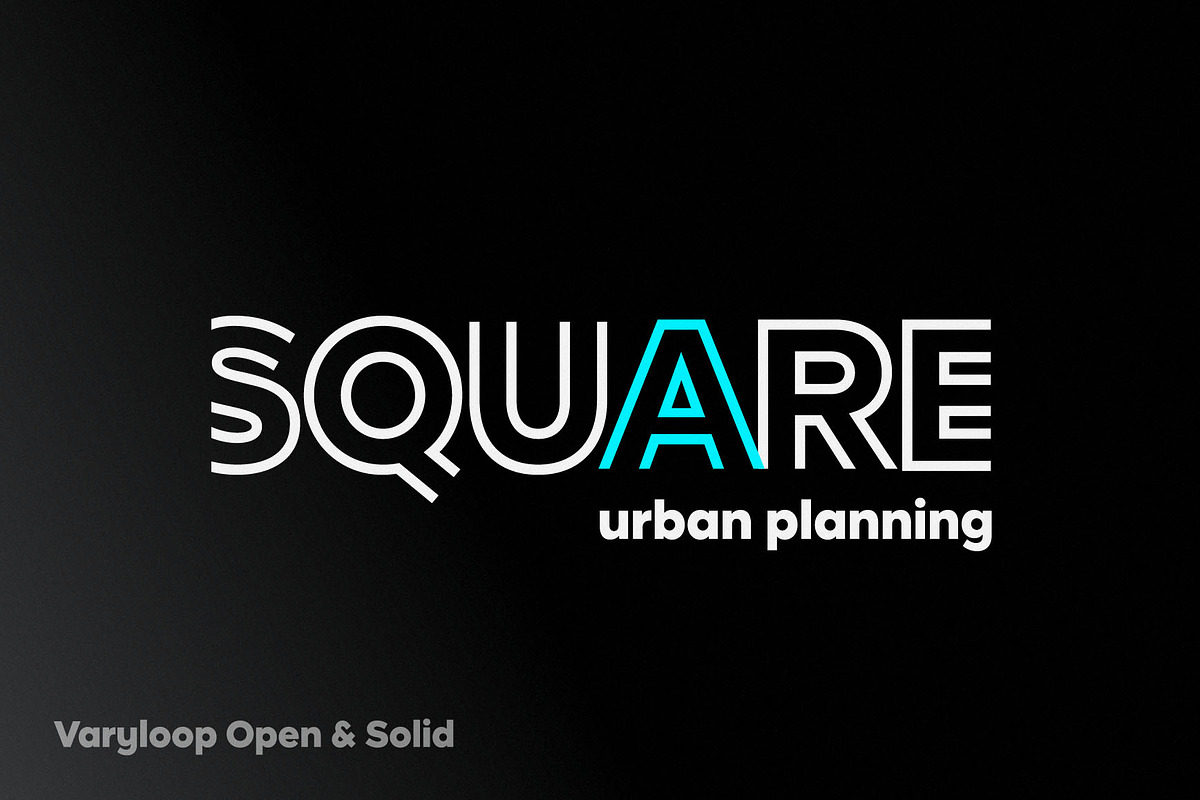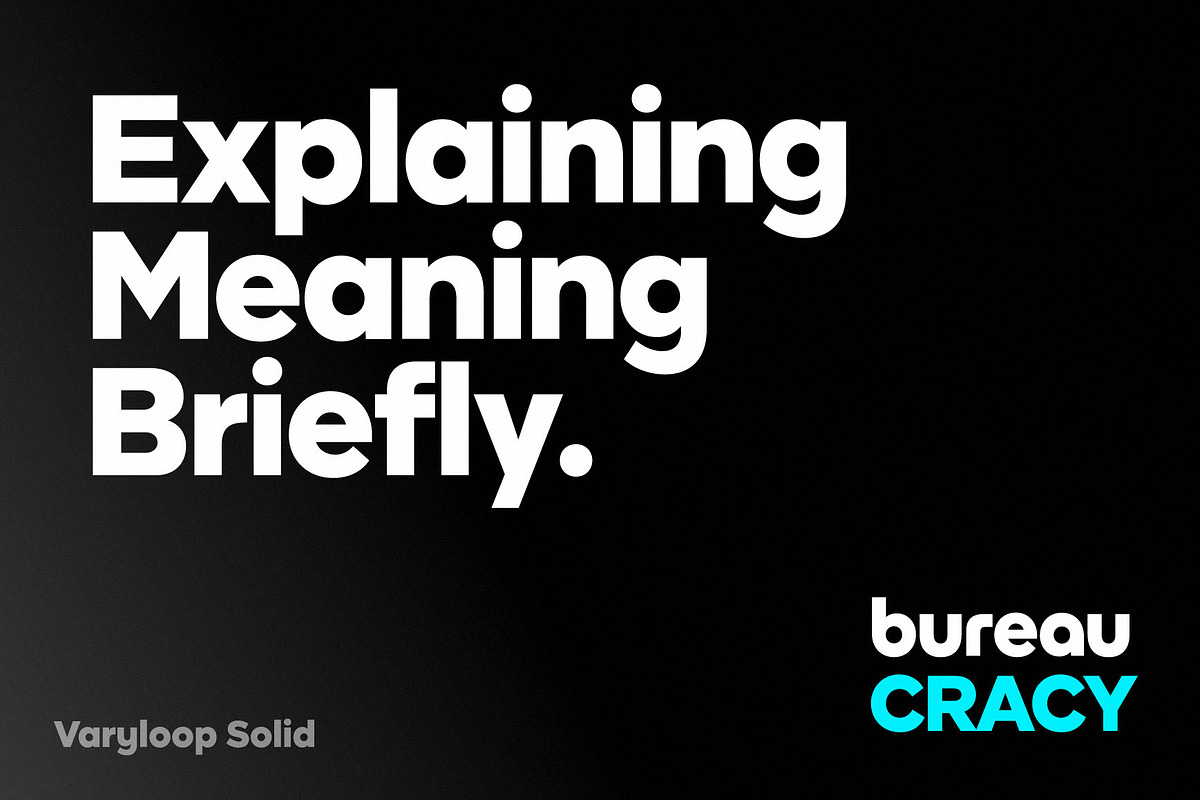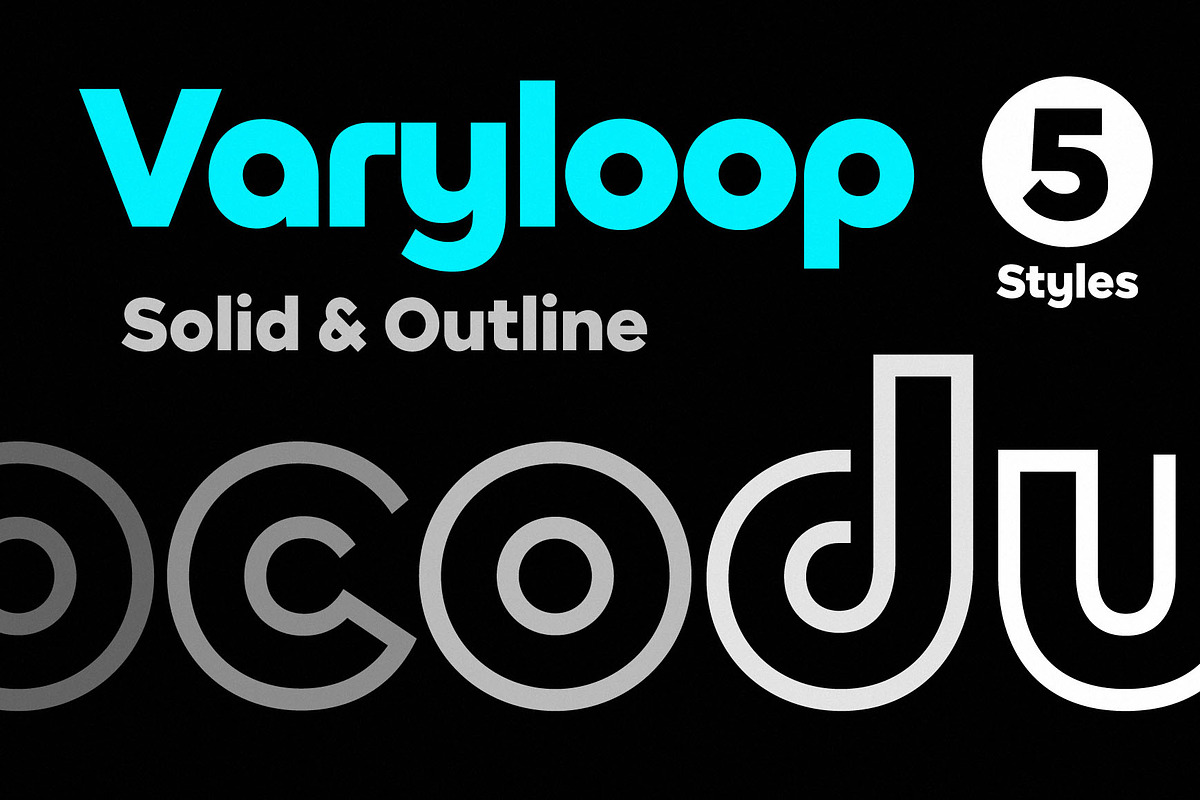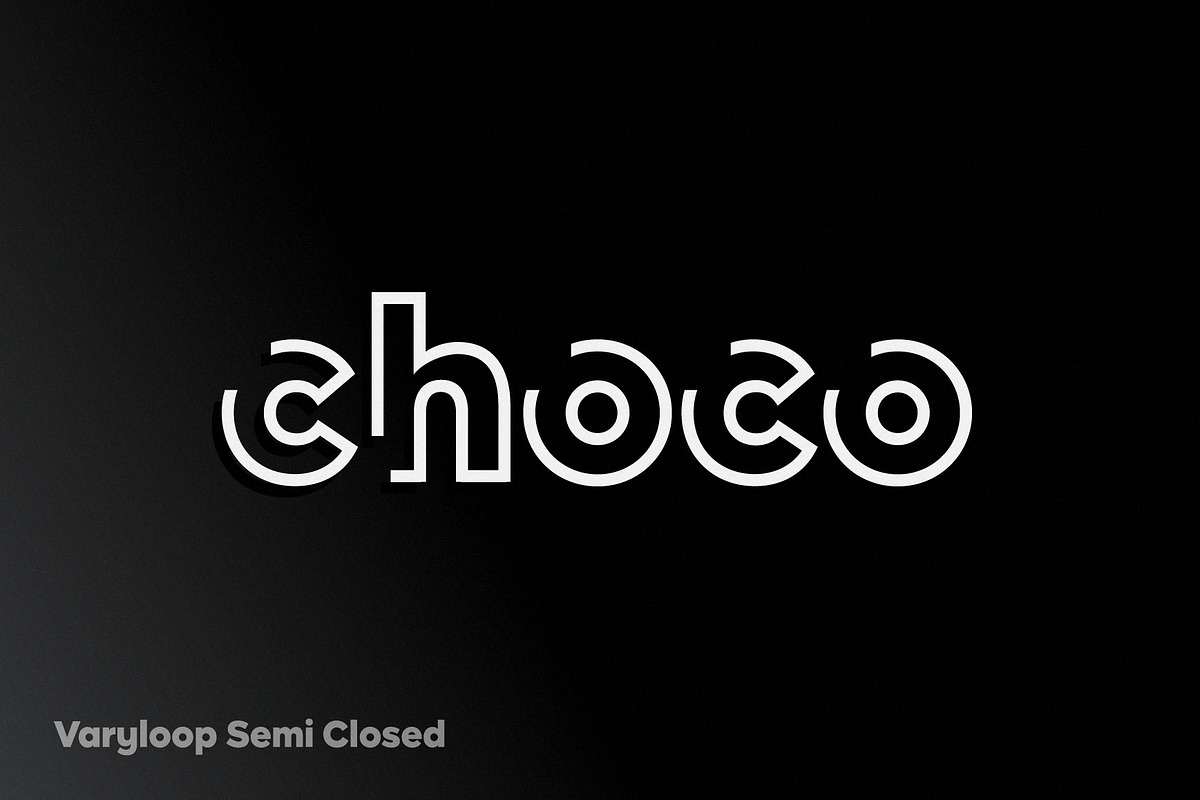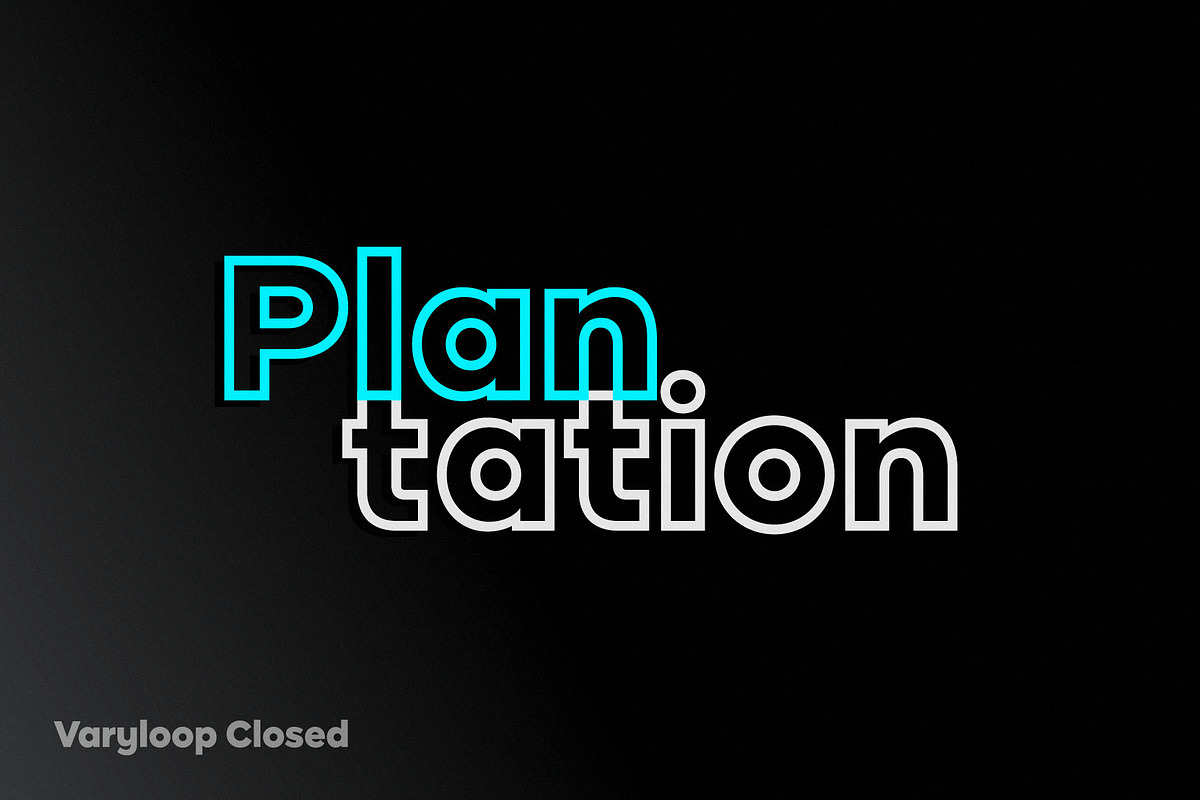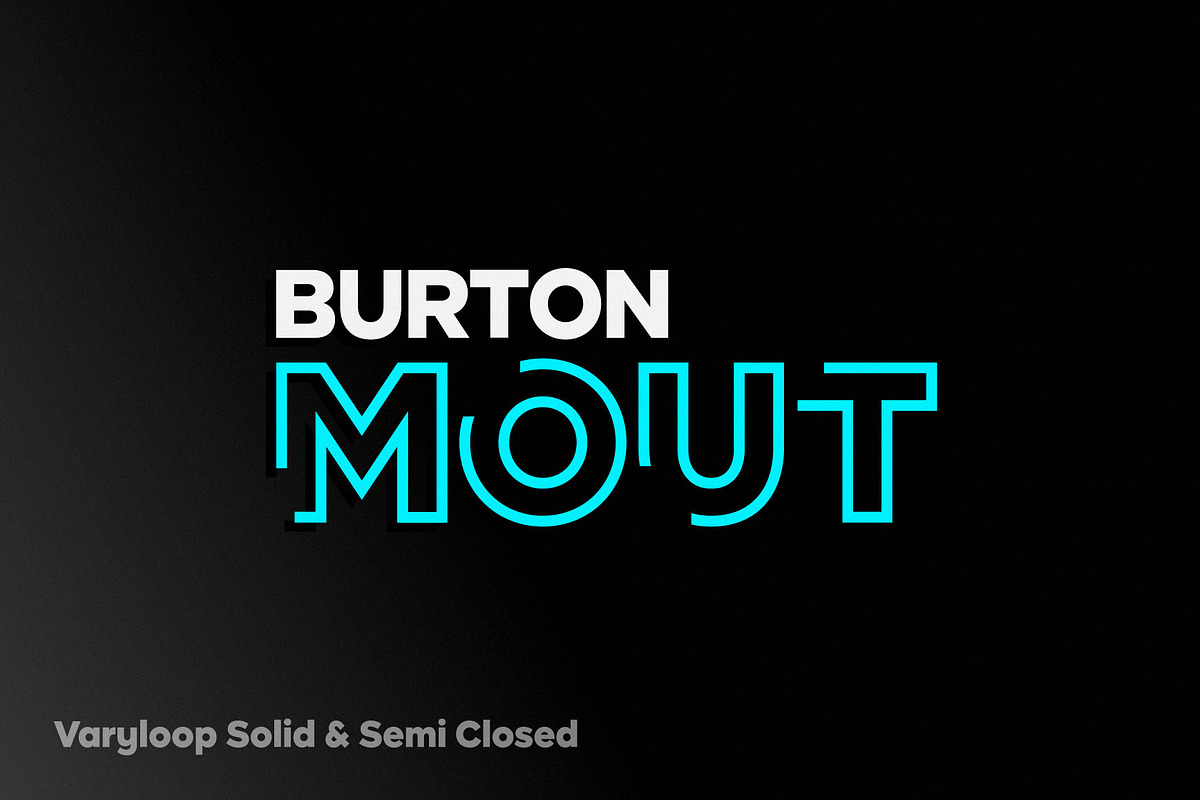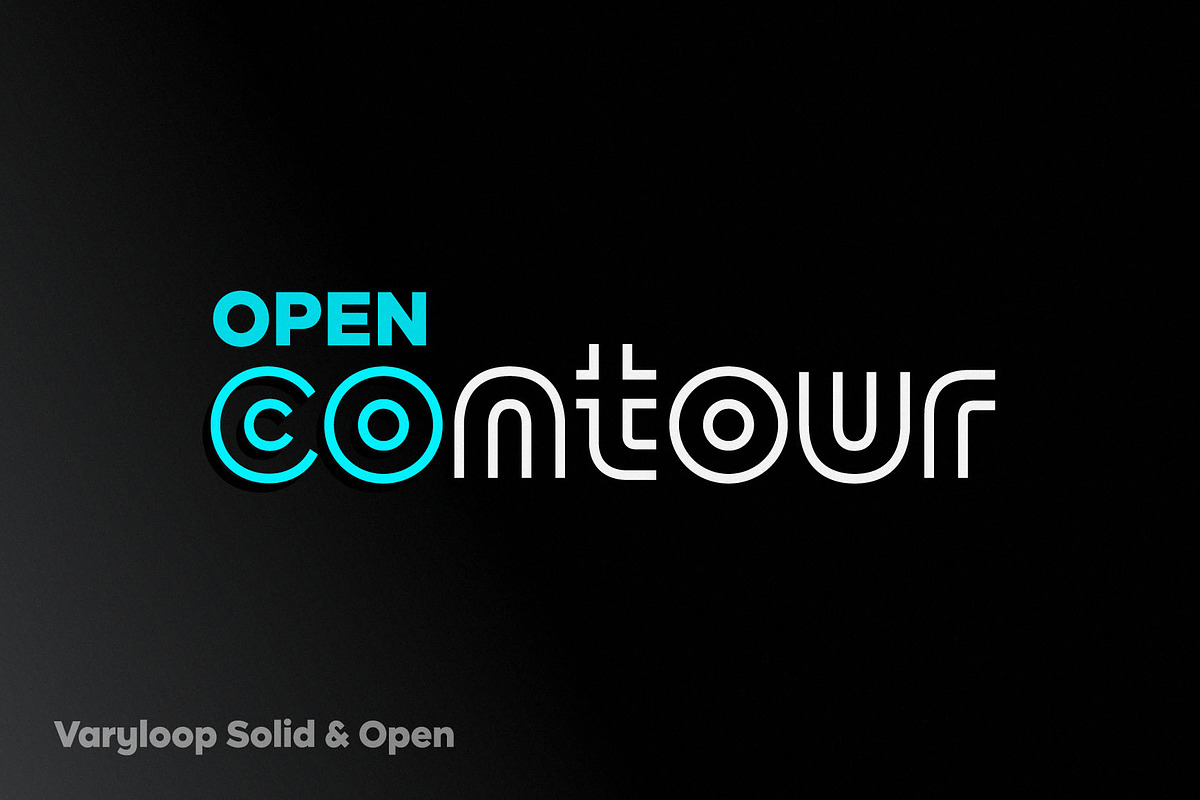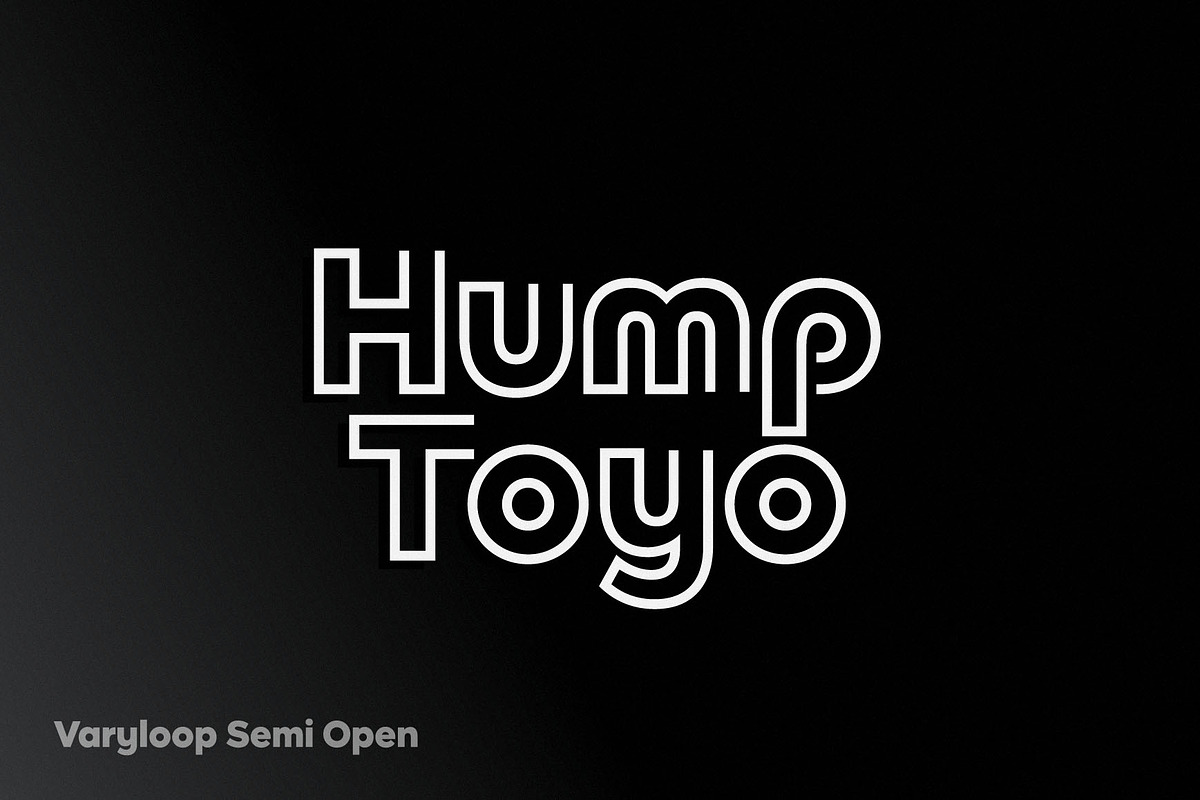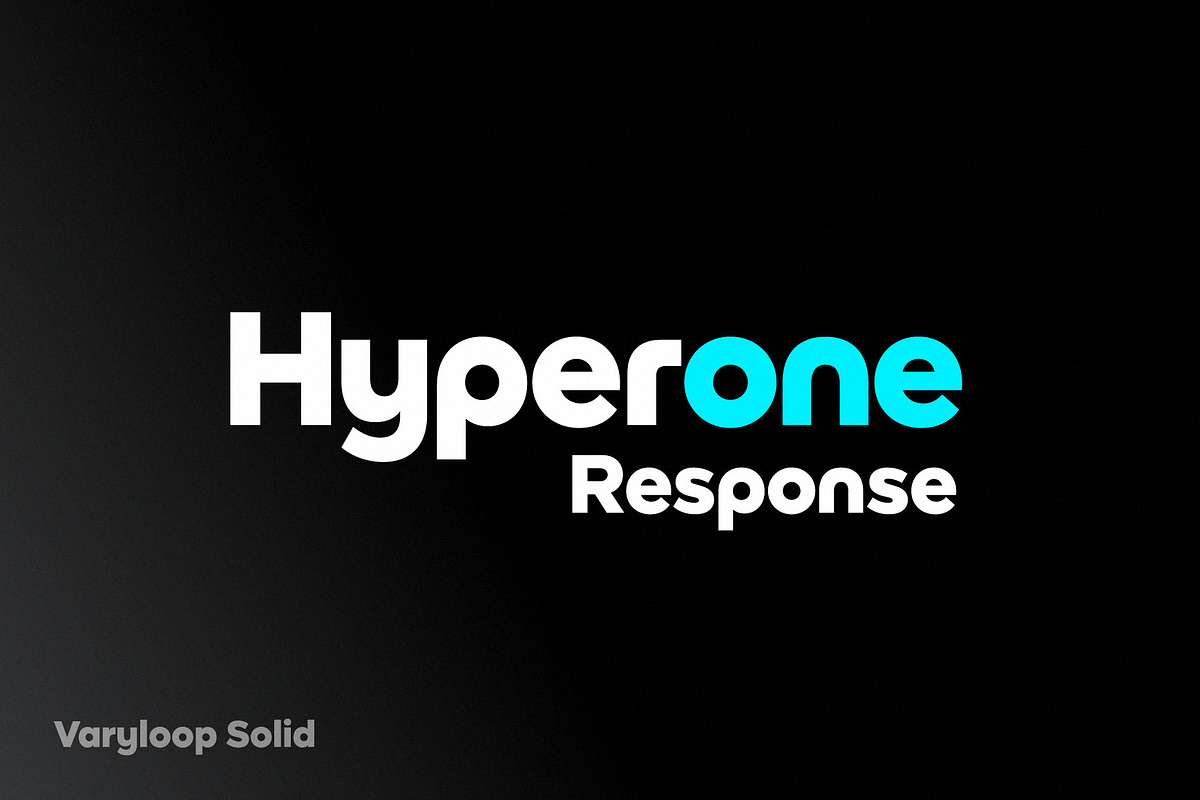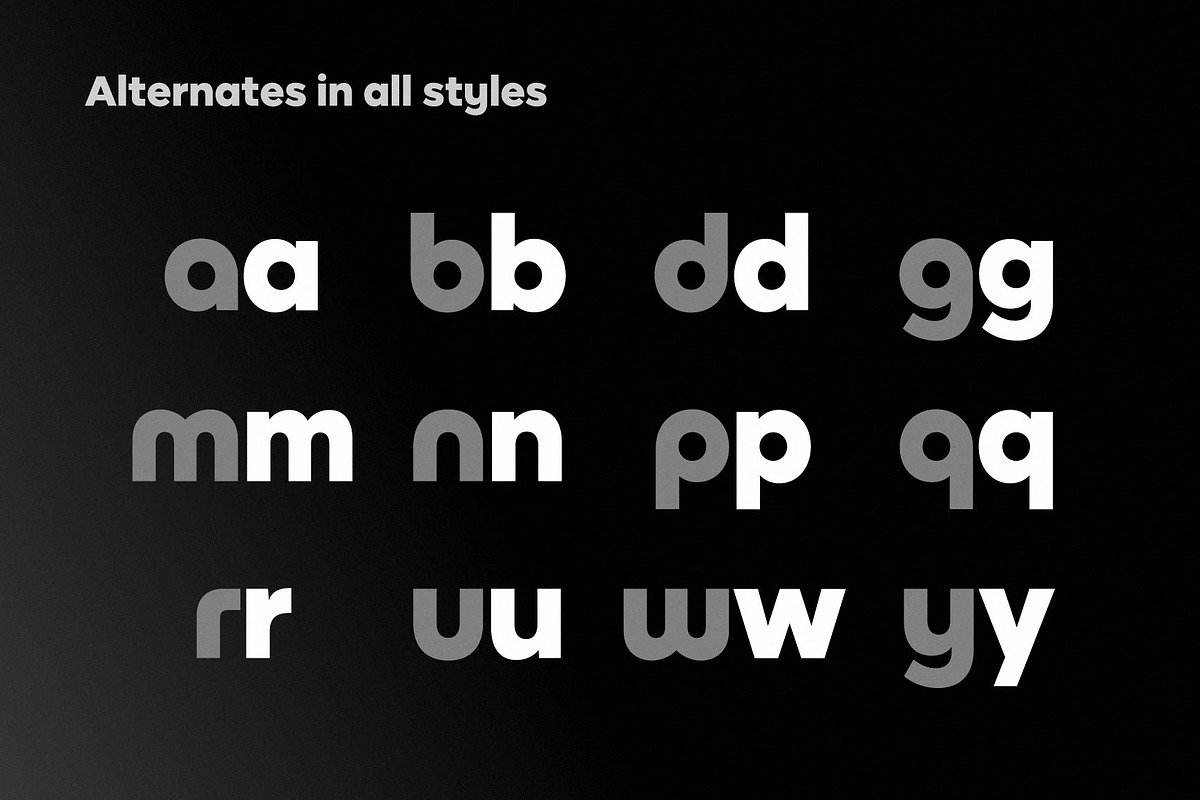
Varyloop Font Family
Varyloop font family is suitable for creating minimalistic logos, wordmarks, titles, taglines. It consists of one solid font and four outline fonts. Each style has a number of alternate characters. You can mix different styles and alternate characters to get an interesting result.
Each font contains:
- lowercase and uppercase Latin letters
- alternate characters
- basic multilingual letters
- numbers
- extra characters
- punctuation